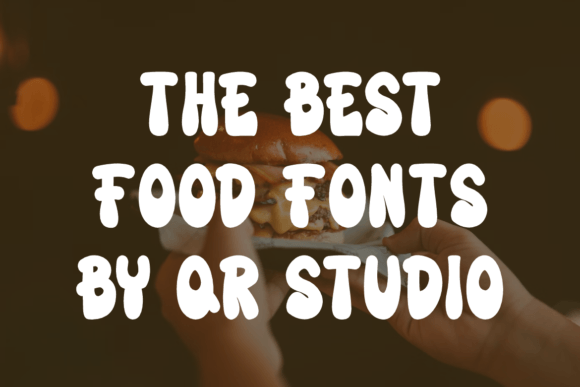
Burger Spooky Font: Adding a Touch of Joy to Your Designs
The world of typography is vast and diverse, with numerous fonts catering to various design needs. One such font that has gained popularity for its unique and playful appeal is the Burger Spooky Font. This fun and friendly display food font has become a favorite among designers, and for good reason. In this article, we’ll delve into the features and benefits of Burger Spooky Font, exploring its uses, characteristics, and why it’s an excellent choice for a wide range of design projects.
What is Burger Spooky Font?
Burger Spooky Font is a display font designed to add a touch of joy and playfulness to any design project. Its primary purpose is to evoke a sense of fun and friendliness, making it perfect for designs that require a lighthearted and approachable tone. The font’s unique design elements, such as its irregular shapes and bold lines, give it a distinctive look that sets it apart from other fonts.
One of the key characteristics of Burger Spooky Font is its versatility. It can be used for a wide range of design projects, from cartoon-related designs and children’s games to quotes, titles, brand names, book covers, posters, and more. The font’s adaptability makes it an excellent choice for designers who want to create engaging and visually appealing content.
Design Applications of Burger Spooky Font
Burger Spooky Font is an excellent choice for various design projects, including:
- Cartoon-related designs: The font’s playful and fun design makes it perfect for cartoon-related projects, such as character designs, comics, and animated films.
- Children’s games: The font’s friendly and approachable tone makes it an excellent choice for children’s games, educational materials, and activity sheets.
- Quotes and titles: Burger Spooky Font is ideal for creating eye-catching quotes and titles that require a touch of personality and whimsy.
- Brand names: The font’s unique design elements make it an excellent choice for brand names that want to stand out and convey a sense of fun and friendliness.
- Book covers: Burger Spooky Font can add a touch of playfulness and whimsy to book covers, making it perfect for children’s books, cookbooks, and other publications that require a lighthearted tone.
- Posters: The font’s bold and eye-catching design makes it an excellent choice for posters, flyers, and other promotional materials.
Benefits of Using Burger Spooky Font
Burger Spooky Font offers several benefits to designers, including:
- Unique and playful design: The font’s distinctive design elements make it stand out from other fonts, adding a touch of personality and whimsy to any design project.
- Versatility: Burger Spooky Font can be used for a wide range of design projects, making it an excellent addition to any designer’s font library.
- Easy to read: Despite its playful design, Burger Spooky Font is easy to read, making it perfect for designs that require a clear and concise message.
- Customizable: The font’s design elements can be customized to fit specific design needs, making it an excellent choice for designers who want to create unique and personalized content.
Tips for Using Burger Spooky Font
To get the most out of Burger Spooky Font, here are some tips to keep in mind:
- Use it sparingly: Burger Spooky Font is a bold and eye-catching font, so it’s best to use it sparingly to avoid overwhelming the design.
- Pair it with other fonts: The font’s unique design elements make it an excellent choice for pairing with other fonts to create a visually appealing design.
- Experiment with colors: Burger Spooky Font looks great in a variety of colors, so don’t be afraid to experiment and find the perfect color scheme for your design.
- Keep it simple: Despite its playful design, Burger Spooky Font works best when used in simple and clean designs.
In conclusion, Burger Spooky Font is a fun and friendly display food font that can add a touch of joy and playfulness to any design project. Its unique design elements, versatility, and ease of use make it an excellent choice for designers who want to create engaging and visually appealing content. Whether you’re designing cartoon-related content, children’s games, quotes, titles, brand names, book covers, or posters, Burger Spooky Font is an excellent choice.